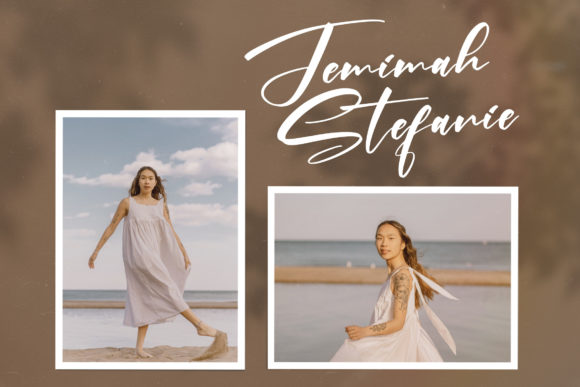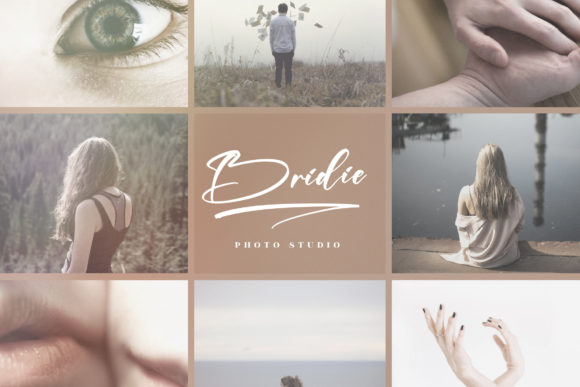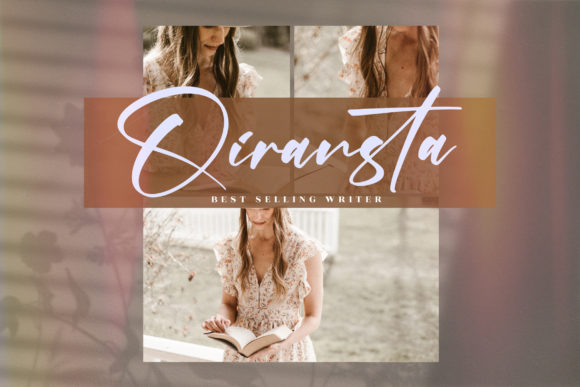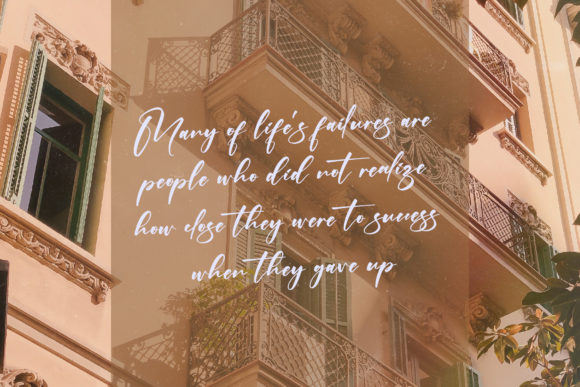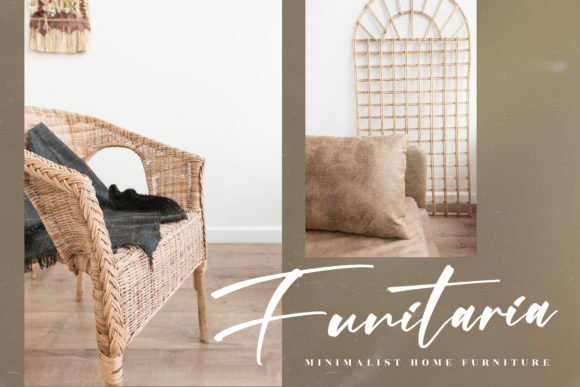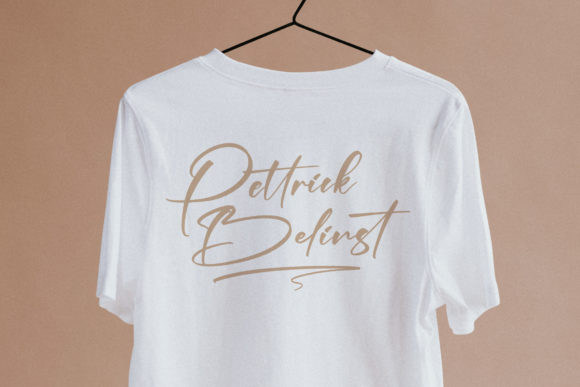
Introduction to Pettrick Belinst Font
Have you ever stared at a blank page, waiting for that perfect font to spark your creativity? As a designer, you know the feeling. You’re searching for that elusive combination of elegance and whimsy to bring your project to life. For many of us, that elusive combination is finally found in the beautiful Pettrick Belinst Font.
This stunning script font is more than just a design resource – it’s a key to unlocking the full potential of your creative project. With its high-quality design and versatility, Pettrick Belinst Font is the perfect choice for any project that requires a touch of sophistication and charm.
Key Features of Pettrick Belinst Font
- Unique, high-quality design for creative projects
- Transparent background, ideal for use on images and graphics
- Includes 2 font styles, allowing for versatility in design applications
- Designed to be highly legible, even at small font sizes
Honest Review: Pettrick Belinst Font
I recently stumbled upon the Pettrick Belinst Font and was immediately drawn to its unique aesthetic. As a designer, I appreciate a good design resource, and this font definitely delivers.
One of the standout features of the Pettrick Belinst Font is its high-quality design. The font is well-crafted and has a professional feel to it. I particularly love the transparent background, which makes it easy to pair with any design project.
- Unique and creative design
- High-quality and professional feel
- Transparent background for easy design pairing
- Some characters may not be fully compatible with all operating systems
Overall, I’m quite impressed with the Pettrick Belinst Font. It’s a great resource for designers looking to add some creativity to their projects. While it may have some limitations, the benefits far outweigh the drawbacks.
The Pettrick Belinst Font is ideal for use in creative projects such as logos, brochures, and social media graphics. Its unique design and transparent background make it a versatile design resource that can be used in a variety of contexts.
Comparison: Alegreya Sans offers a more modern feel compared to Pettrick Belinst Font’s vintage aesthetic. It is suitable for digital designs and can be used for headings and body text.